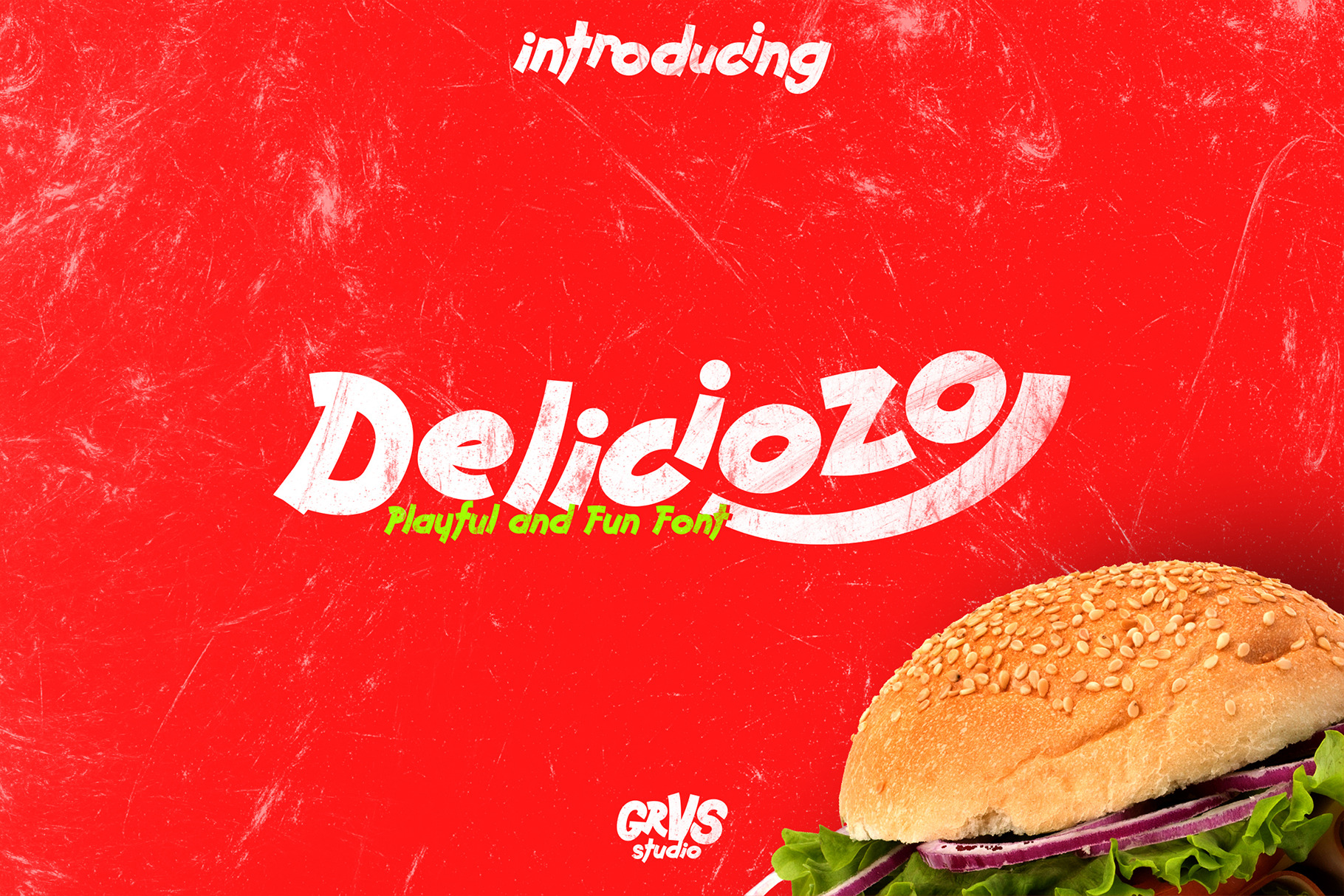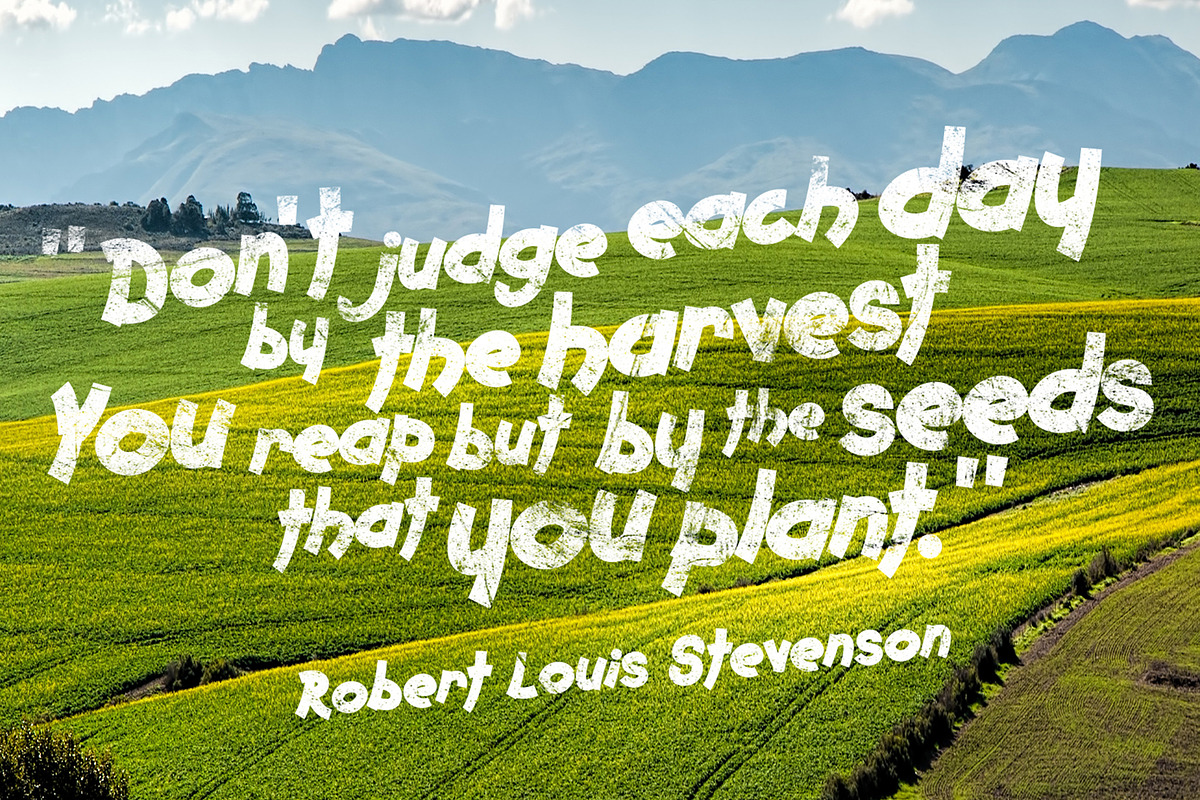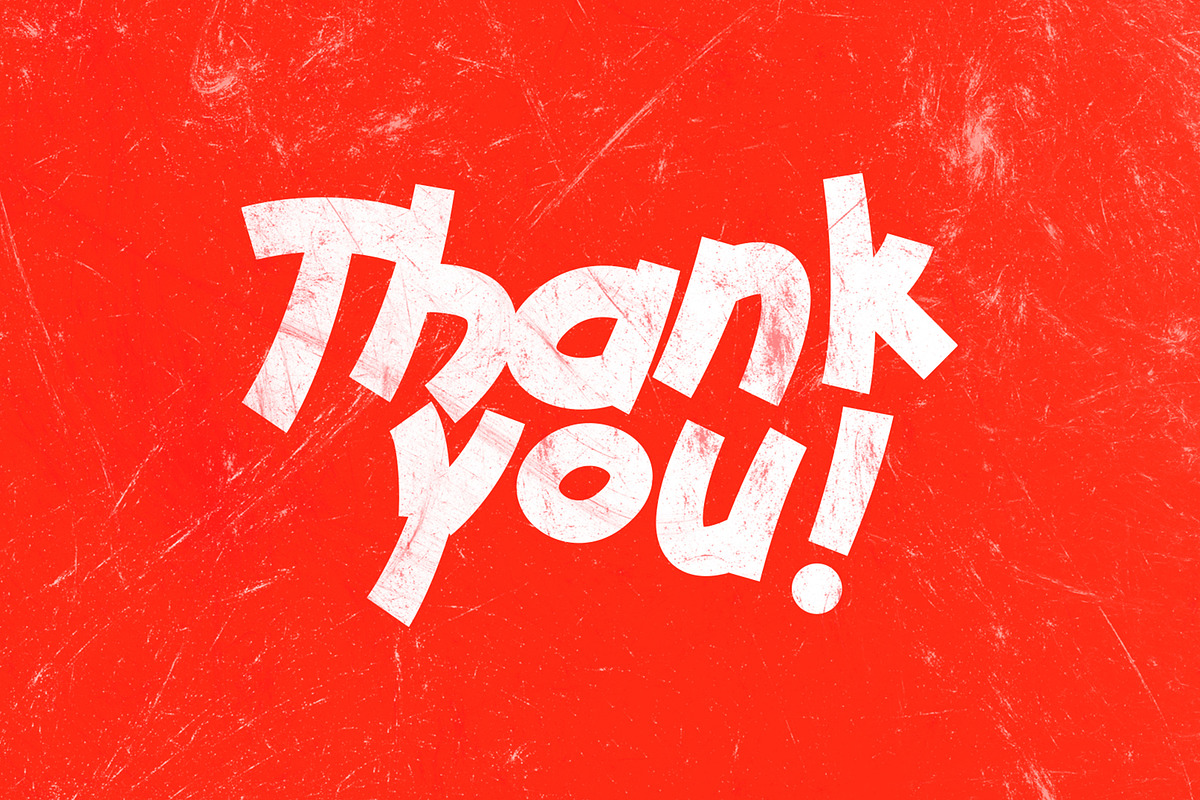
Deliciozo Font
GRVS Deliciozo Font is our new item that is suitable for your Restaurant logo, food and beverages business, or Food logo with a playful and fun theme.
Great for Logo, Sticker, Jersey, Invitation Card, Brochures, etc.